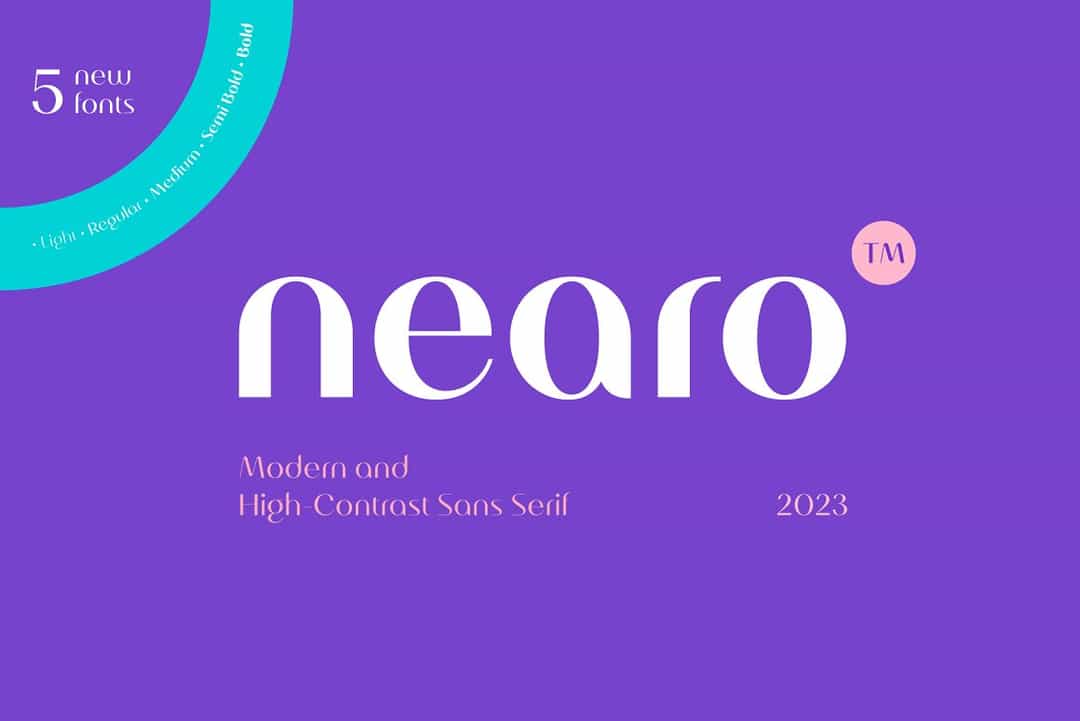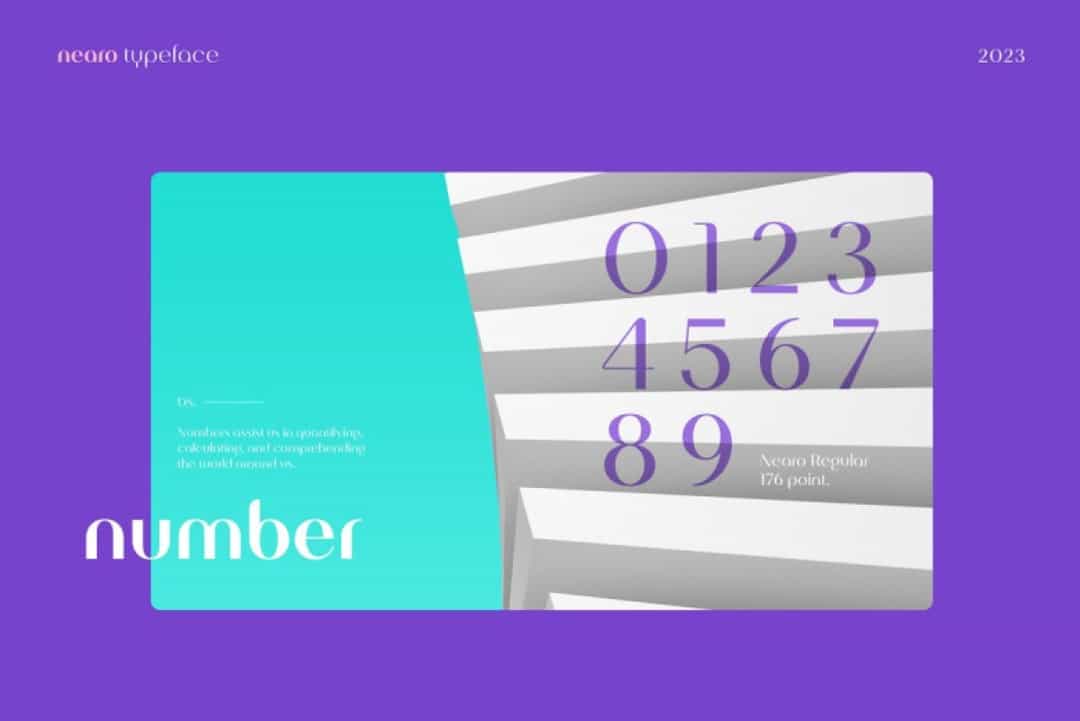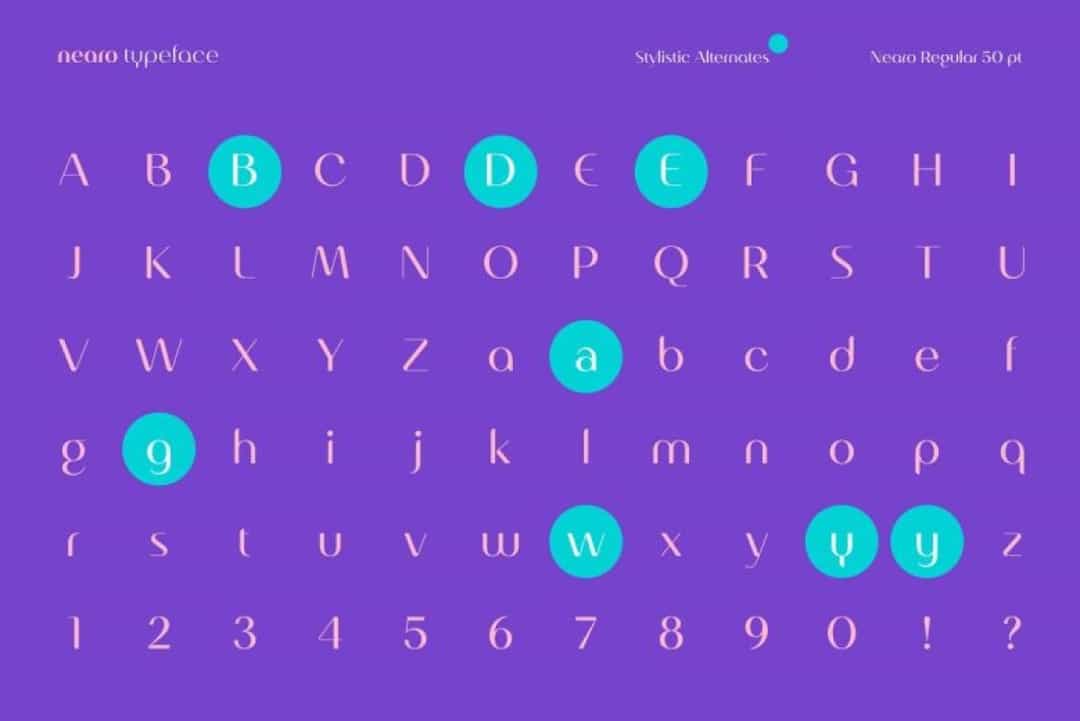
Nearo offers five font styles with contemporary, high-contrast designs to create a striking and memorable impression. Nearo works beautifully for projects with simple and clean designs such as books, magazines, logos packaging, fashion invitations and greeting invitations as well as various advertising purposes.